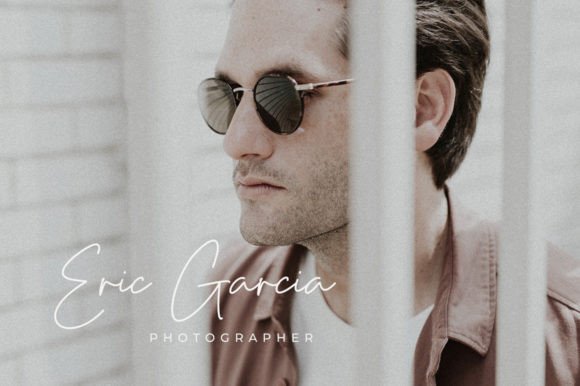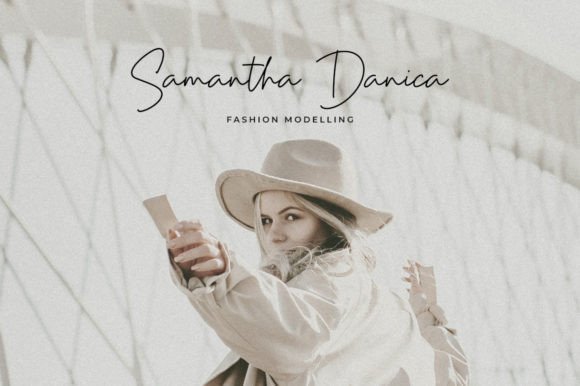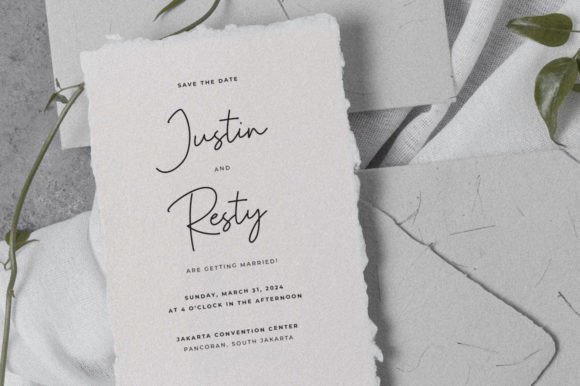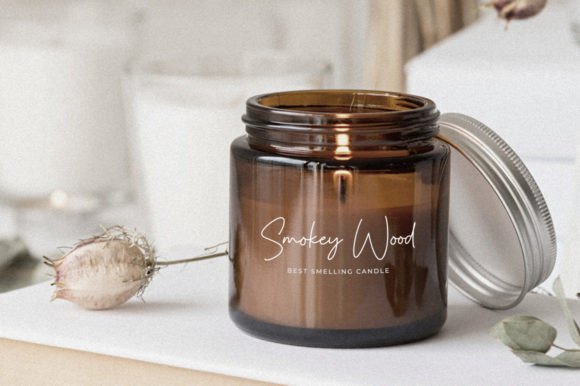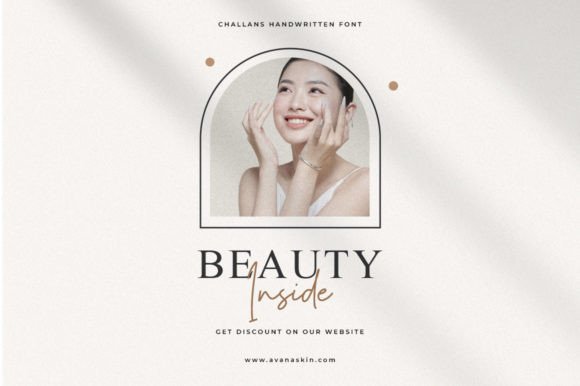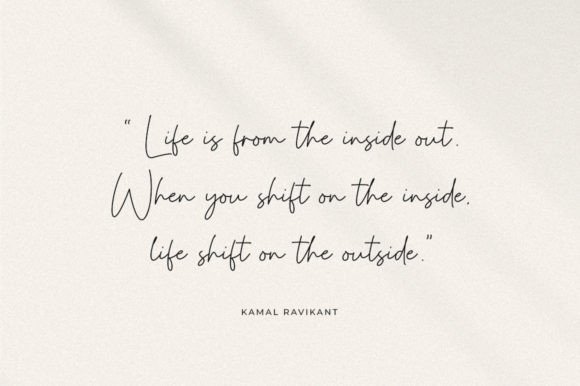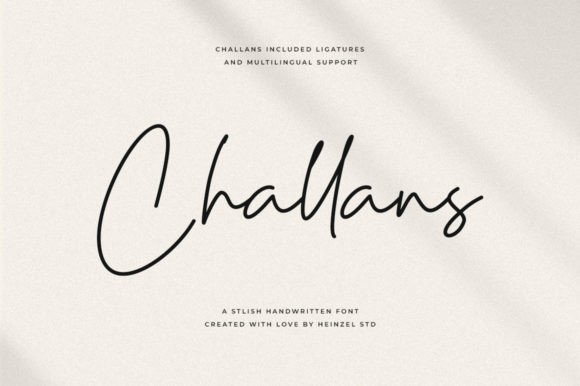
Introducing Challans Font: The Elegant Handwritten Touch for Your Designs
Are you looking for a font that adds a touch of elegance and sophistication to your designs? Look no further than Challans Font, a beautiful handwritten font that is perfect for a wide range of projects. With its flowing lines and refined aesthetic, Challans Font is ideal for designers and crafters who want to add a personal touch to their work.
What is Challans Font?
Challans Font is a handwritten font that is characterized by its elegant and refined appearance. It features flowing lines, subtle curves, and a sophisticated aesthetic that makes it perfect for designs that require a touch of class. Whether you’re working on a wedding invitation, a thank you card, or a business logo, Challans Font is the perfect choice.
Key Features of Challans Font
So, what makes Challans Font so special? Here are some of its key features:
• Elegant and Refined Aesthetic: Challans Font has a sophisticated and elegant appearance that makes it perfect for designs that require a touch of class.
• Handwritten Touch: Challans Font has a beautiful handwritten touch that adds a personal and unique feel to your designs.
• Versatile: Challans Font is perfect for a wide range of projects, including wedding invitations, thank you cards, quotes, greeting cards, logos, business cards, and more.
• Easy to Read: Despite its elegant appearance, Challans Font is easy to read and understand, making it perfect for designs that require a clear and concise message.
Uses of Challans Font
So, what can you use Challans Font for? The possibilities are endless! Here are some ideas to get you started:
• Wedding Invitations: Challans Font is perfect for wedding invitations, adding a touch of elegance and sophistication to your special day.
• Thank You Cards: Express your gratitude with Challans Font, which adds a personal and heartfelt touch to your thank you cards.
• Quotes and Greeting Cards: Challans Font is perfect for quotes and greeting cards, adding a touch of elegance and refinement to your message.
• Logos and Business Cards: Use Challans Font to create a professional and sophisticated logo or business card that stands out from the crowd.
• Social Media Graphics: Challans Font is also perfect for social media graphics, adding a touch of elegance and refinement to your posts and updates.
Why Choose Challans Font?
So, why should you choose Challans Font for your designs? Here are some reasons:
• Unique and Personal Touch: Challans Font adds a unique and personal touch to your designs, setting them apart from the rest.
• Elegant and Sophisticated: Challans Font has an elegant and sophisticated appearance that makes it perfect for designs that require a touch of class.
• Versatile: Challans Font is perfect for a wide range of projects, making it a great addition to your font library.
• Easy to Use: Challans Font is easy to use and integrate into your designs, making it perfect for designers and crafters of all levels.
In conclusion, Challans Font is a beautiful handwritten font that adds a touch of elegance and sophistication to your designs. With its flowing lines, refined aesthetic, and versatile uses, Challans Font is perfect for designers and crafters who want to add a personal touch to their work. Whether you’re working on a wedding invitation, a thank you card, or a business logo, Challans Font is the perfect choice. So why wait? Download Challans Font today and take your designs to the next level!